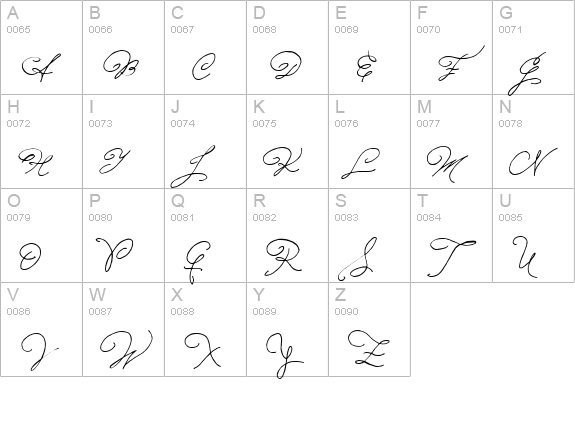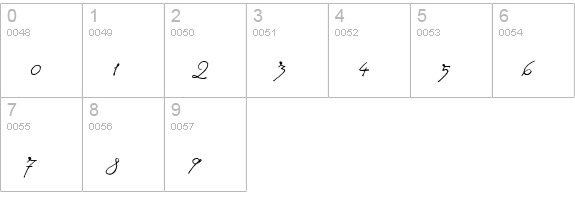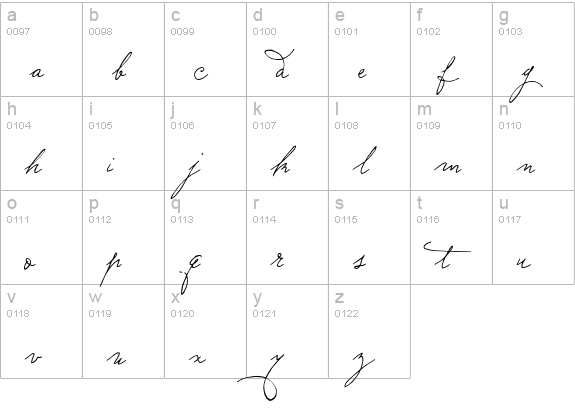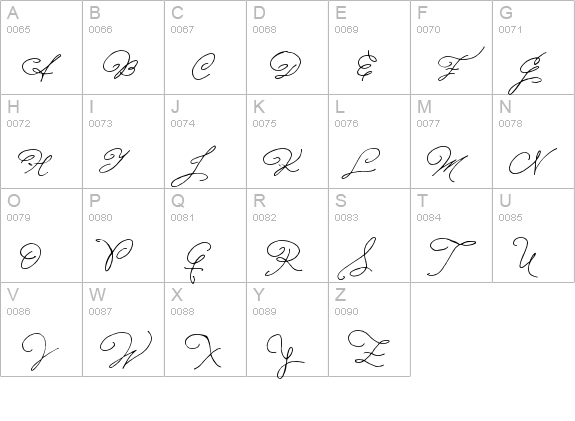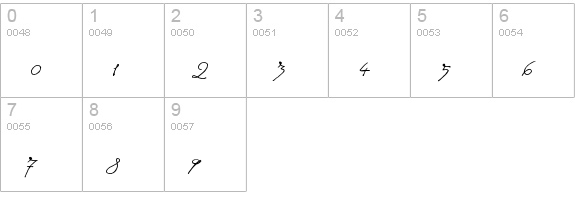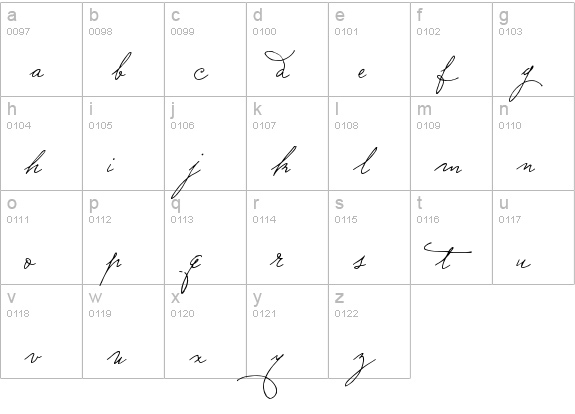
Sudestada font is a modern and elegant typeface that effortlessly blends sophistication with a touch of whimsy. Its sleek lines and graceful curves make it the perfect choice for a wide range of design projects, from branding to editorial layouts. This versatile font exudes a sense of creativity and refinement, making it ideal for those looking to make a statement with their typography. And the best part? Sudestada font is completely free to download at FontsMarket.com. Now you can access this stunning font without any cost, allowing you to elevate your designs with ease. Don't miss out on the opportunity to add Sudestada font to your font library today and unleash your creativity like never before.